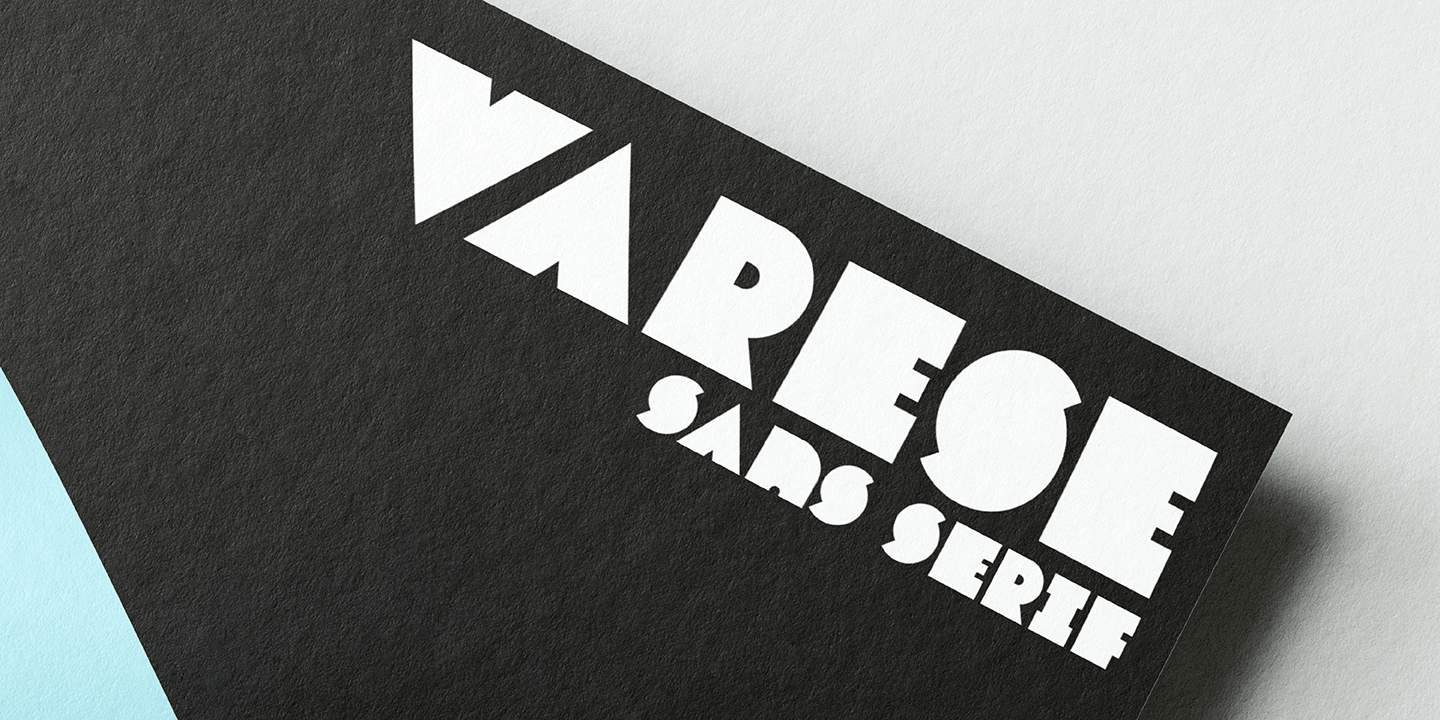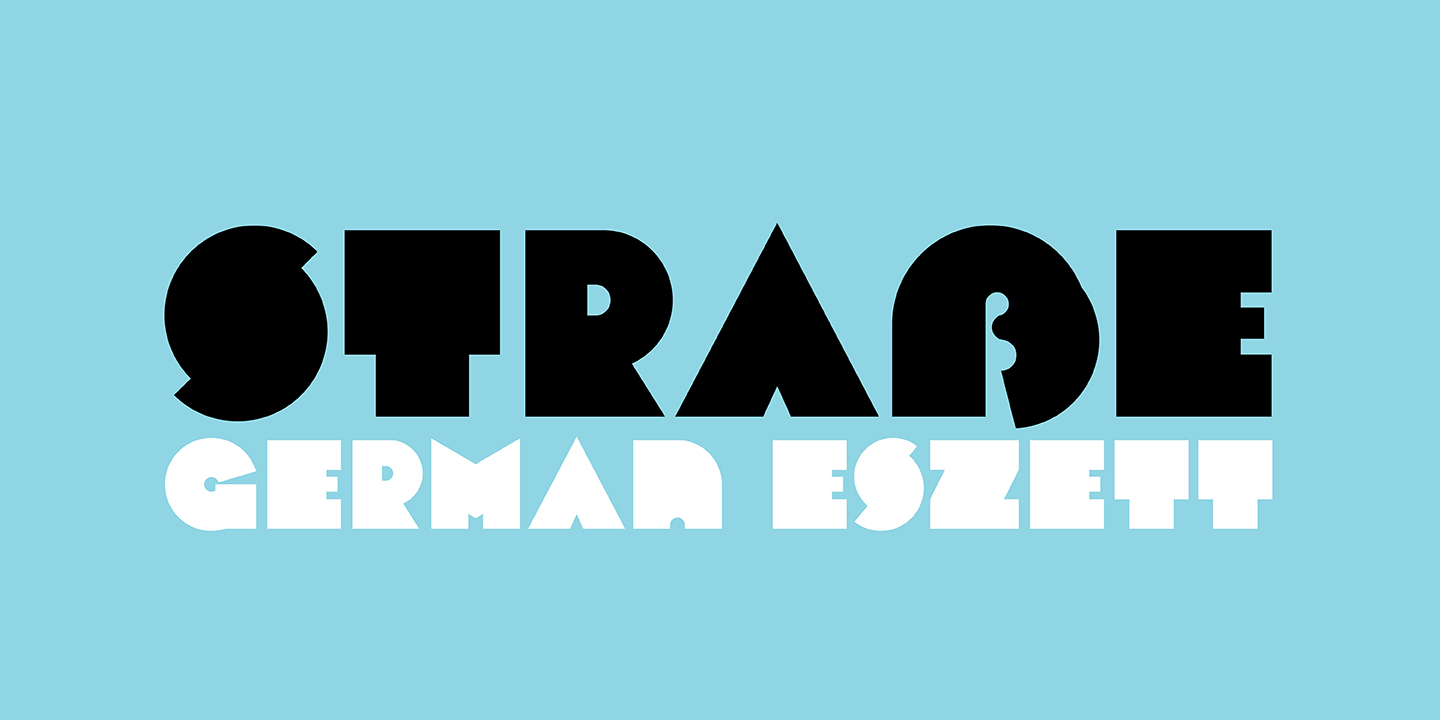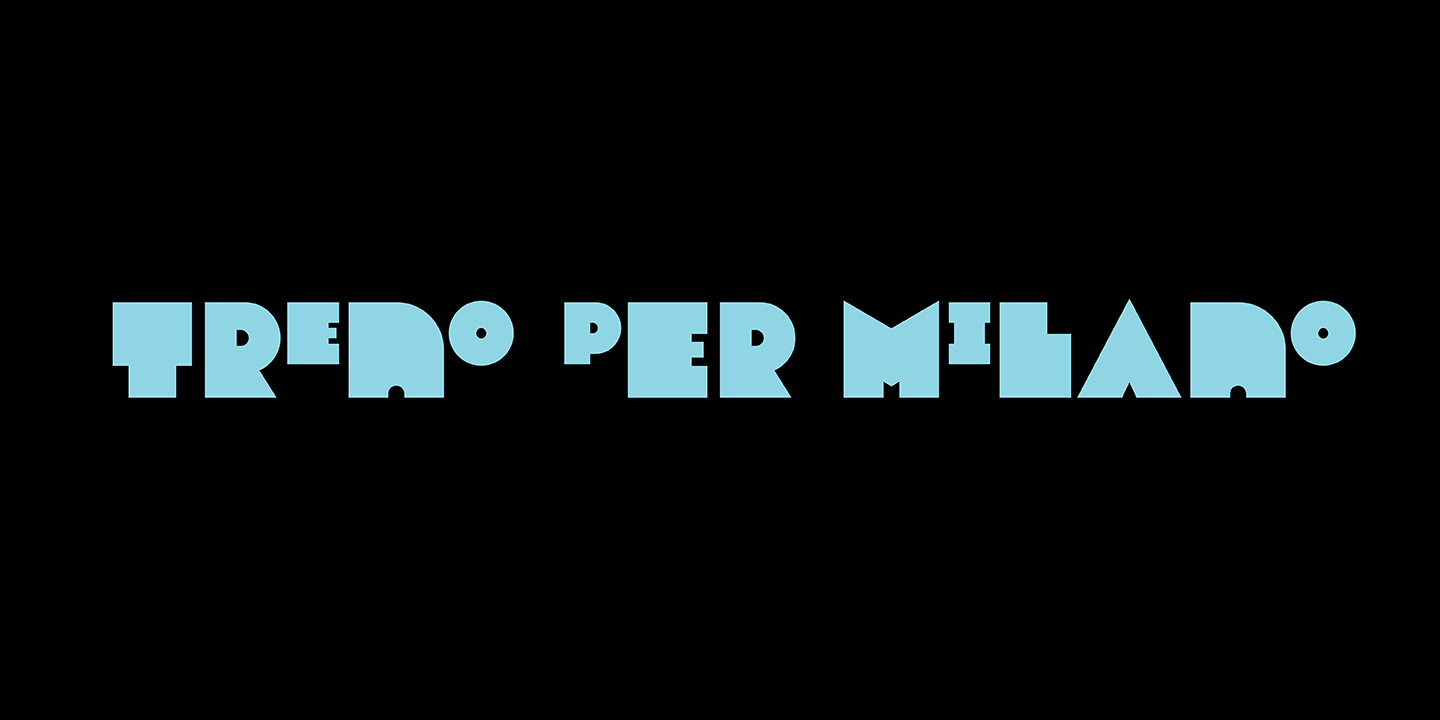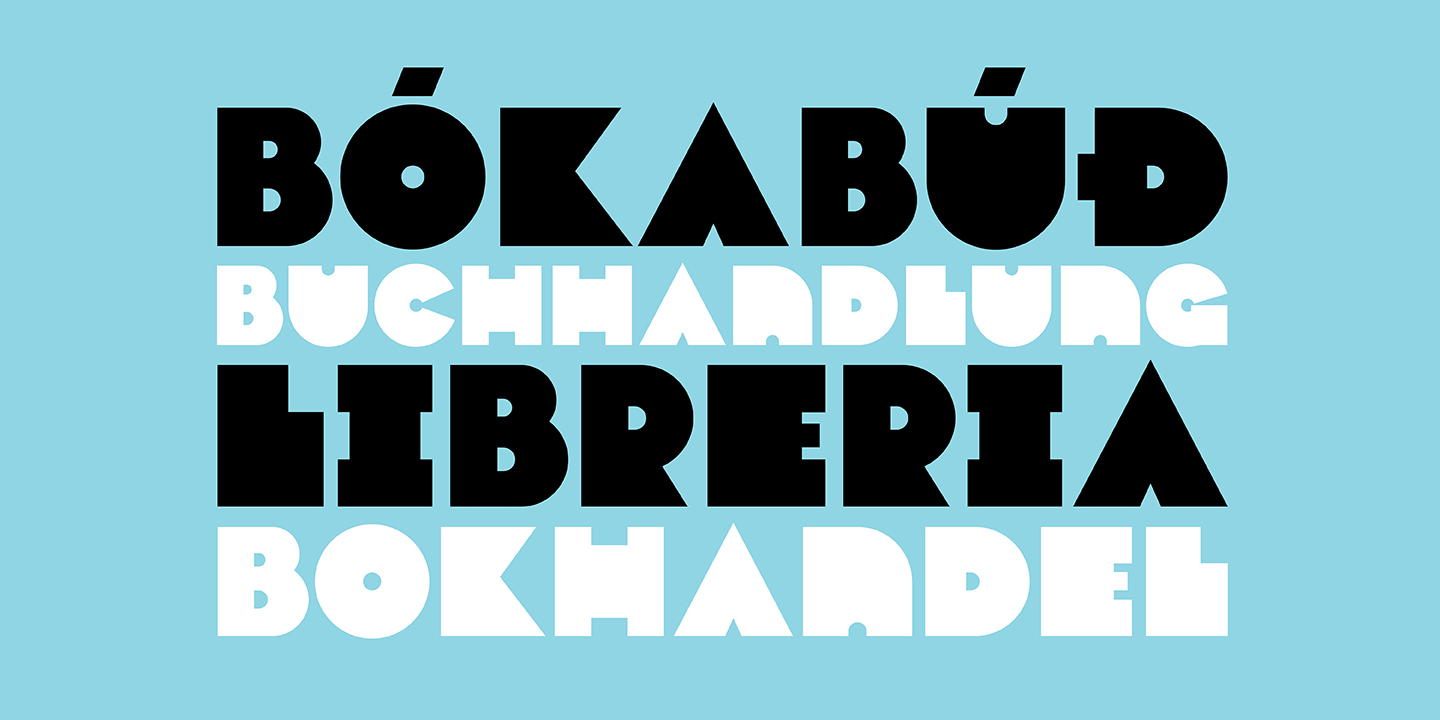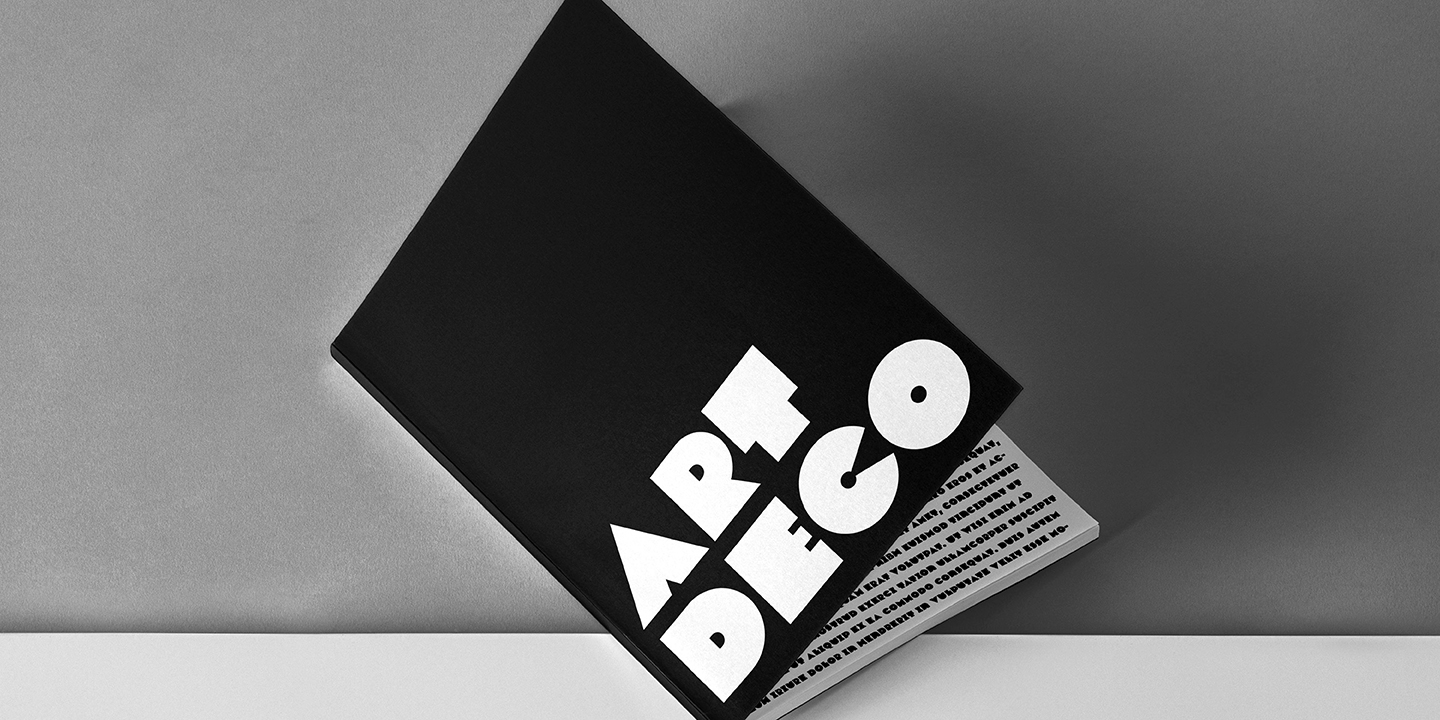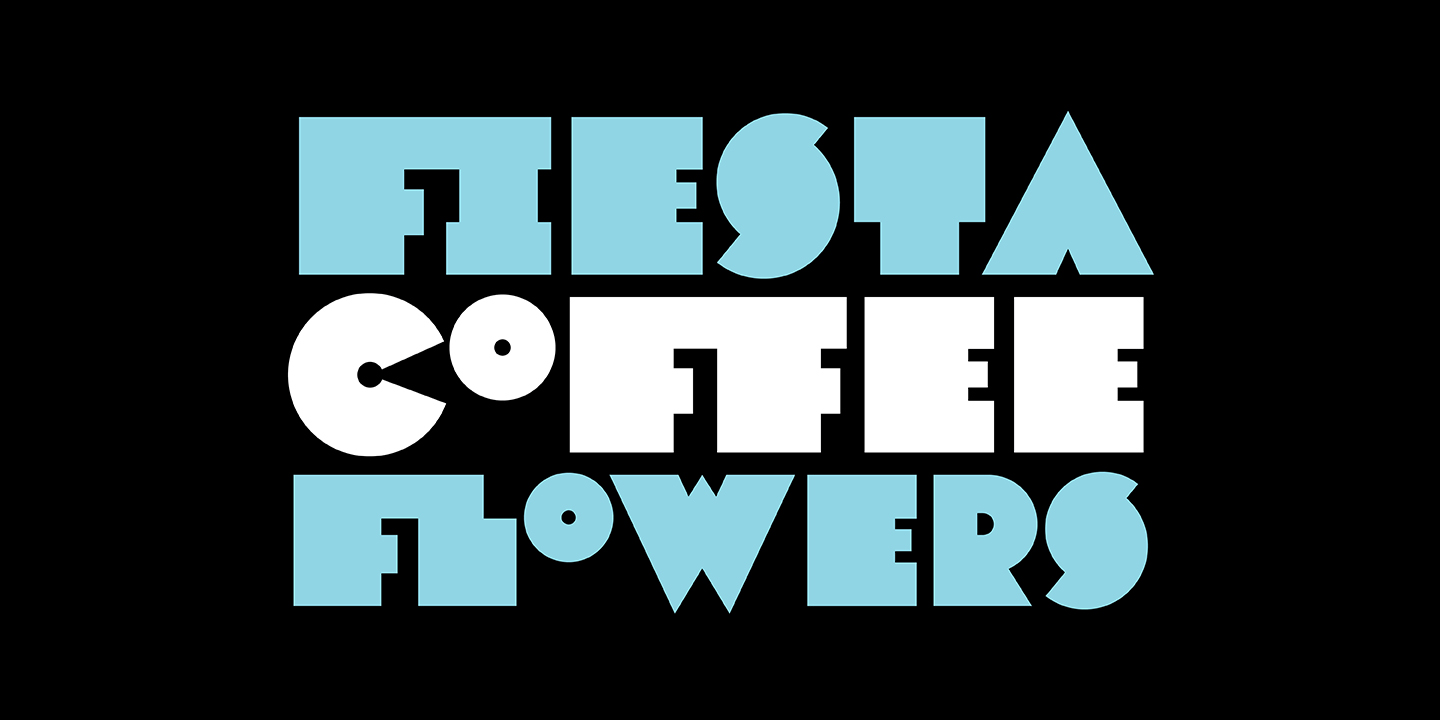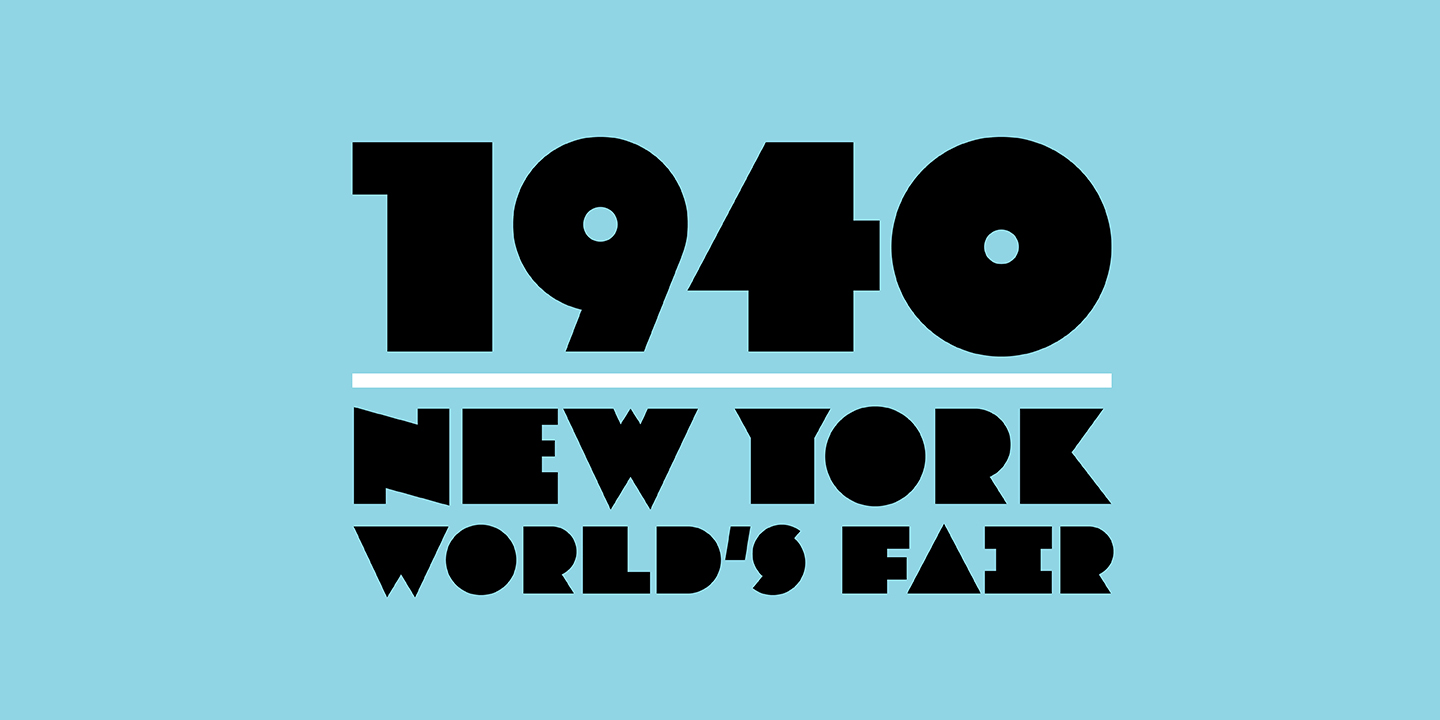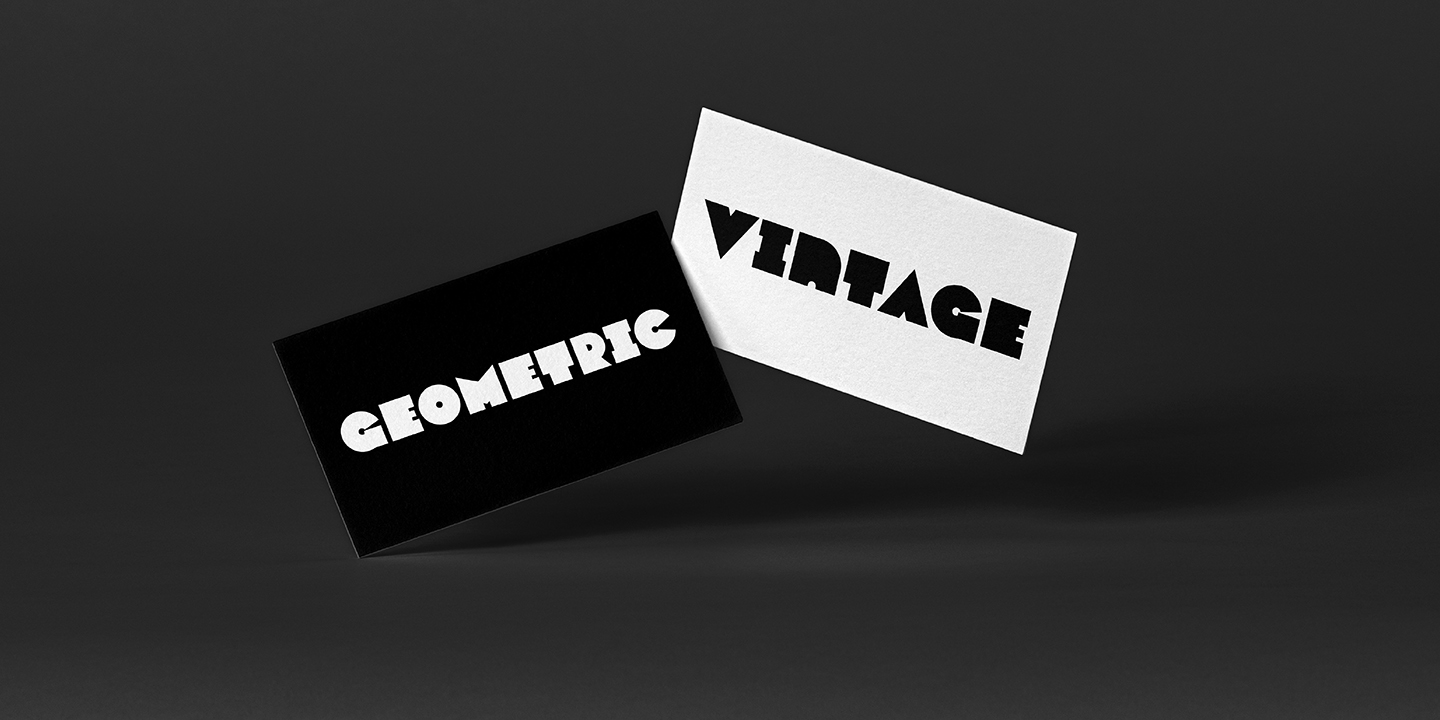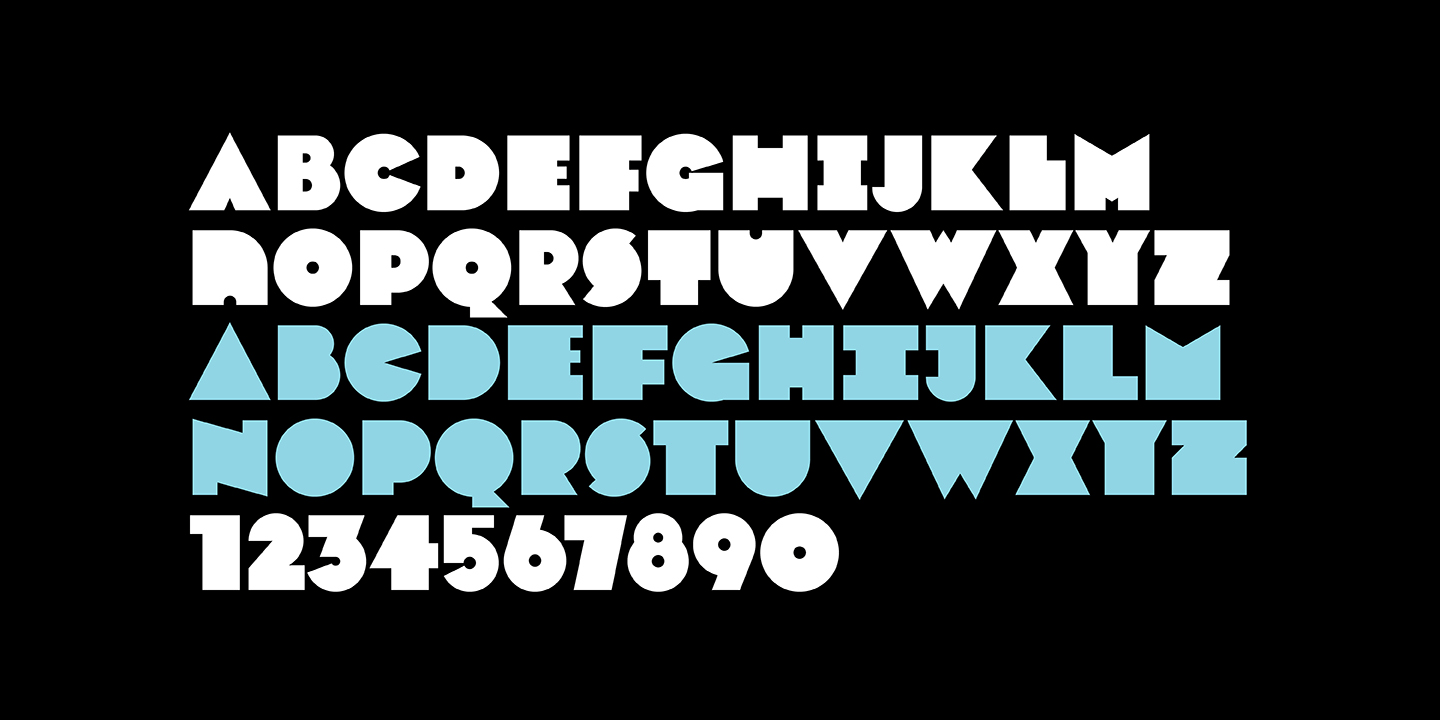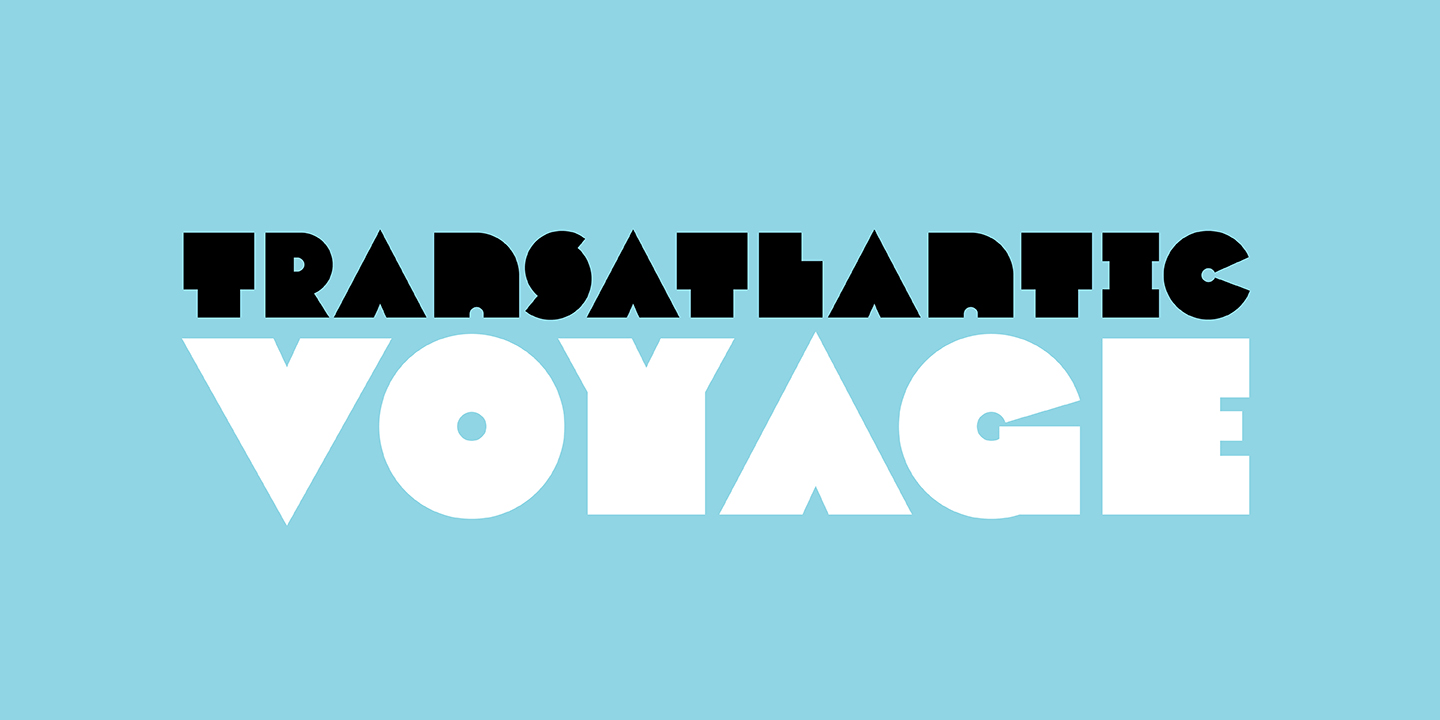
Varese
Font Family by Tarallo Design
Varese is a geometric and modular typeface inspired by early 1900s Art Deco posters. Its heavy weight is excellent for headlines, display, or large body text. The lowercase is similar to the uppercase, yet many of the lowercase letters have interior spaces and several have some variations on the form (see H/h, E/e, F/f, I/i, J/j, L/l, N/n, T/t). The lowercase also has two alternate glyph sets that are half size and align with cap height. One of the alternate glyph sets has an underline and the other set does not.